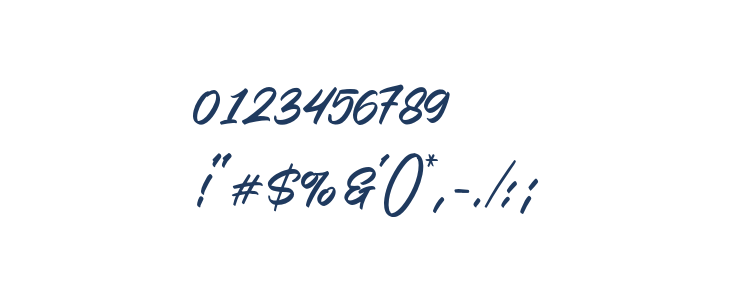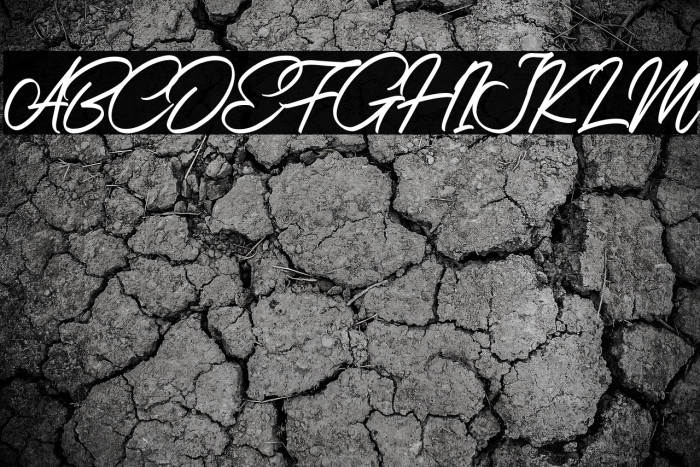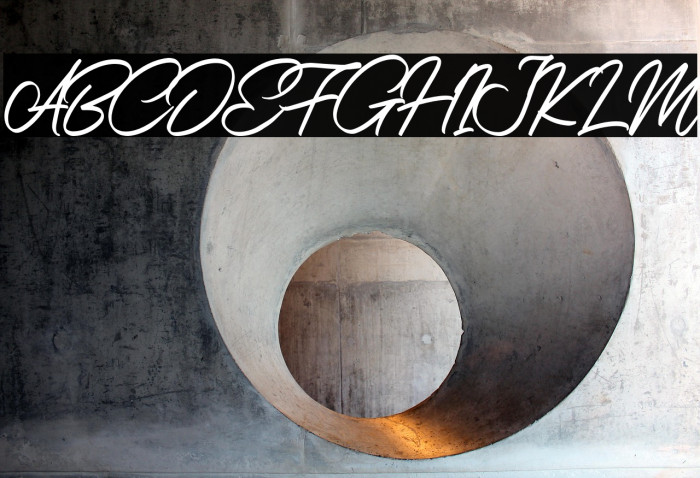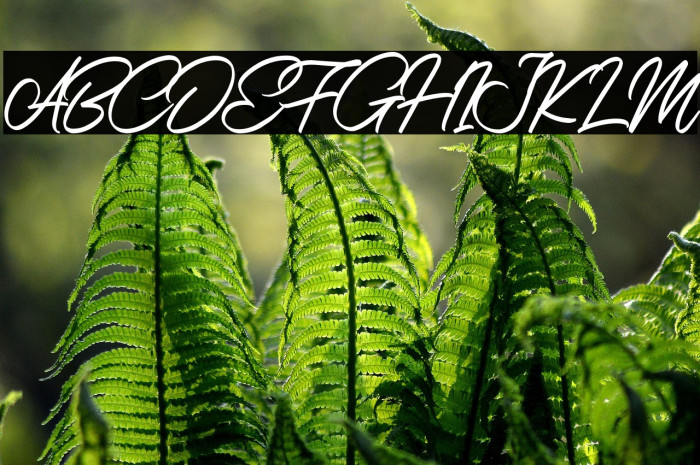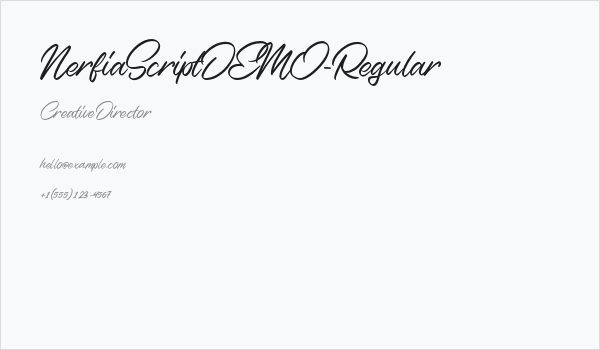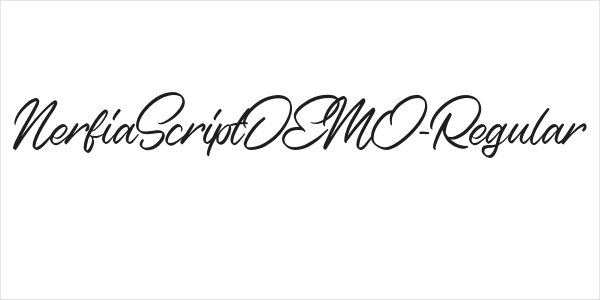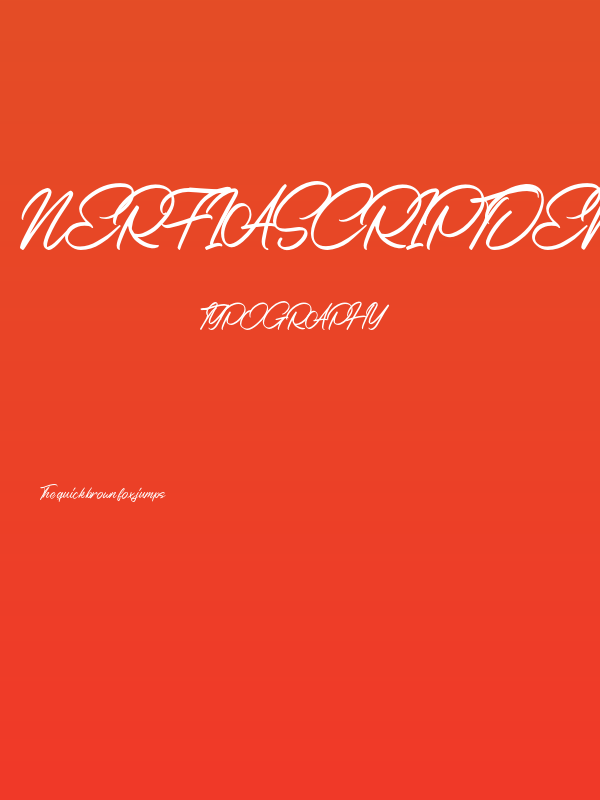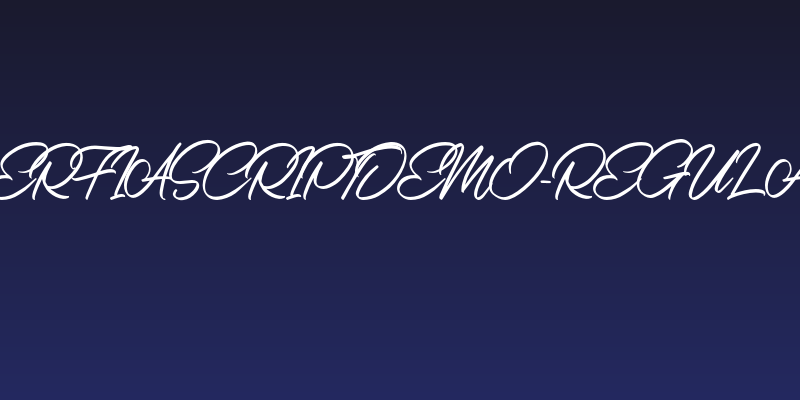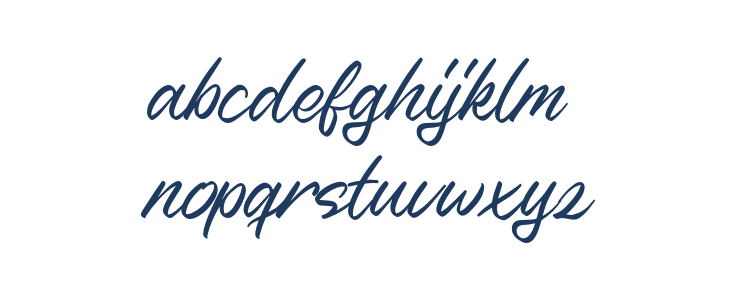
NerfiaScriptDEMO-Regular Font
NerfiaScriptDEMO-Regular Description
This font exudes a dynamic and fluid style, characterized by its cursive script form. The letters are interconnected with smooth, flowing strokes, creating an elegant and sophisticated appearance. The uppercase letters are bold and prominent, while the lowercase letters maintain a consistent rhythm and flow. The numerals and special characters are designed to complement the overall script style, maintaining the same fluidity and elegance. This font is ideal for projects that require a touch of class and sophistication, such as invitations, branding, and decorative purposes.
| Categories | Script |
| Overall Style | Elegant |
| Use Case | Logos, Invitations, Decorative text |
| Proposed Projects | Ideal for wedding invitations, branding, logos, and decorative designs. |